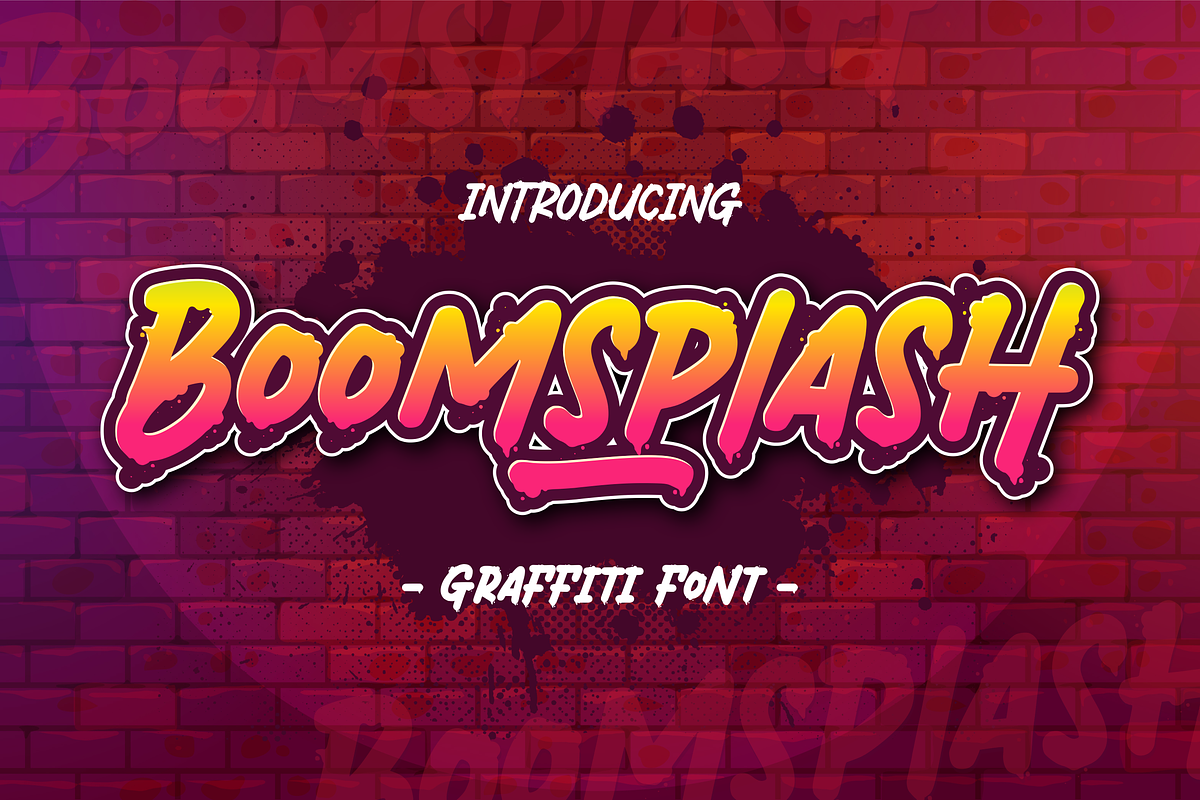
Boomsplash – A Graffiti Font Free Download is an urban-inspired typeface that brings the bold, expressive style of street art into your designs. With its rough edges, dynamic letterforms, and vibrant personality, Boomsplash is perfect for posters, music covers, skateboarding brands, streetwear fashion, and graffiti-themed graphics.
This font captures the energy and rebellious spirit of graffiti, making it ideal for projects that need to stand out and make a statement. Whether you’re creating eye-catching album artwork or designing bold event flyers, Boomsplash adds a raw, artistic touch to your typography.